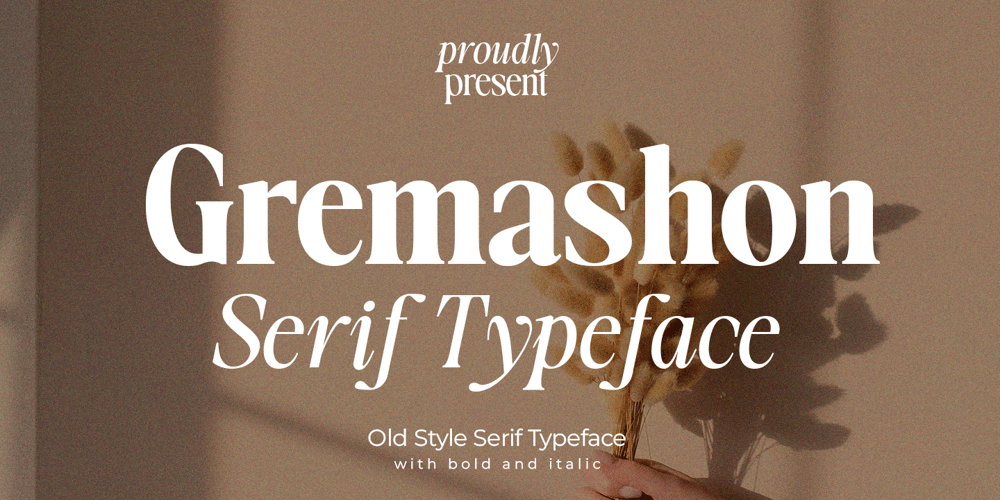
Gremashon
Gremashon font
Gremashon Font Family was designed by Fahmi Iman and published by Spectype. Gremashon contains 4 styles and family package options. The new serif font named “Gremashon” offers an elegant and modern design, blending classic sophistication with contemporary flair. With variations in italic, bold, and bold italic styles, Gremashon provides high flexibility for various design needs, suitable for both print and digital media. The italic style adds a dynamic feel, while bold and bold italic emphasize strength and clarity in the text. Each letter in Gremashon is crafted with balanced proportions, ensuring optimal readability without sacrificing aesthetics. With these characteristics, the Gremashon font is perfect for projects aiming to convey messages of growth and innovation.